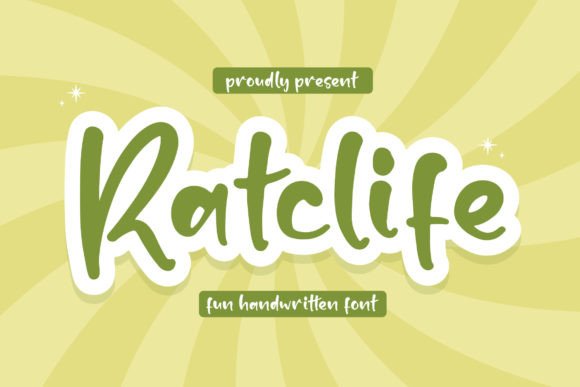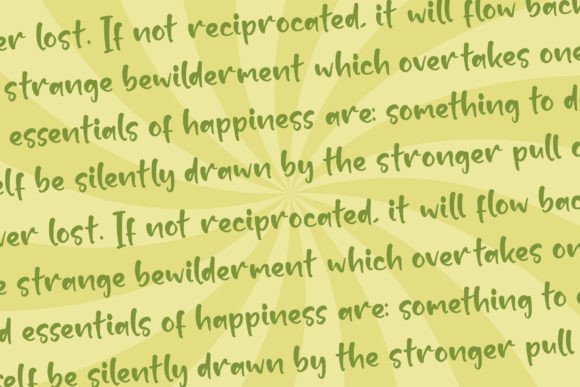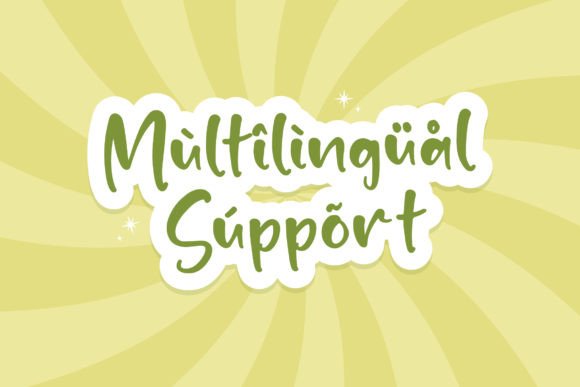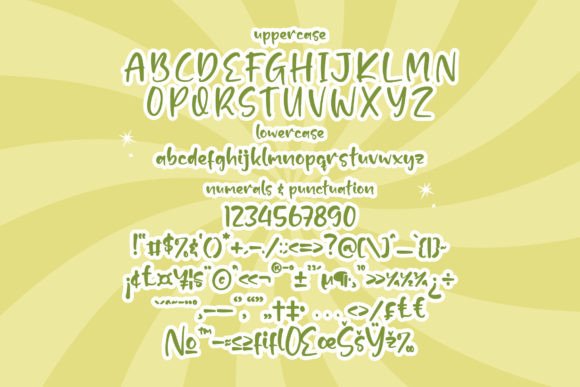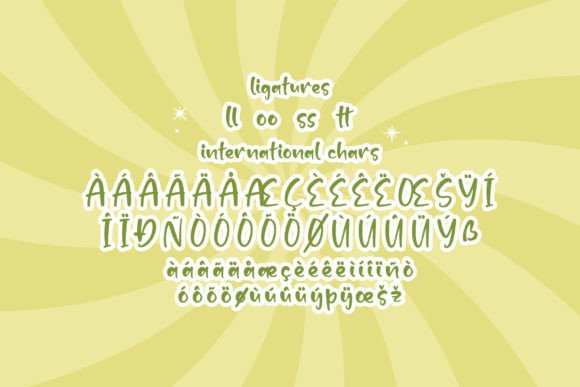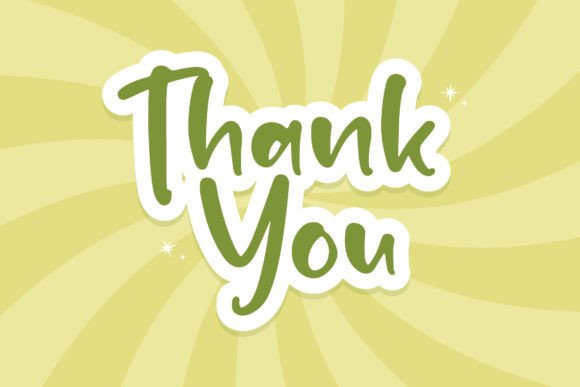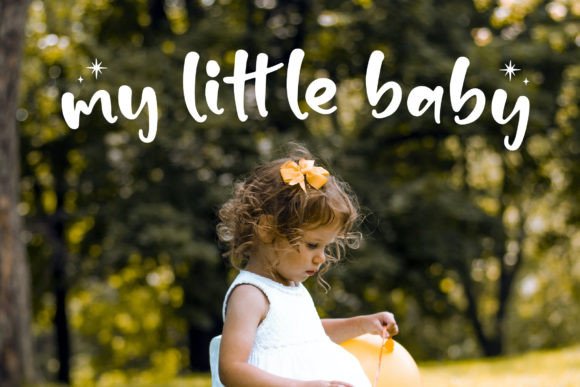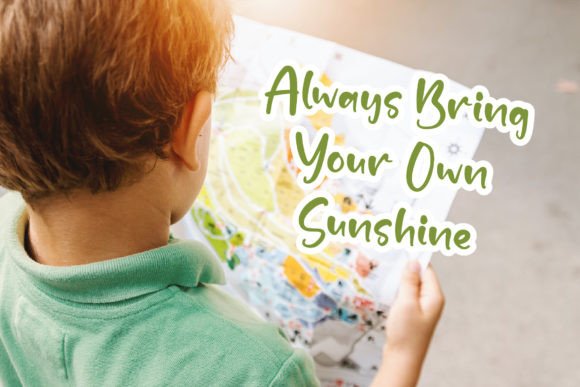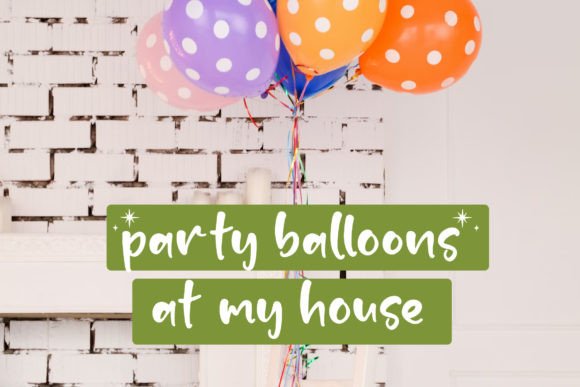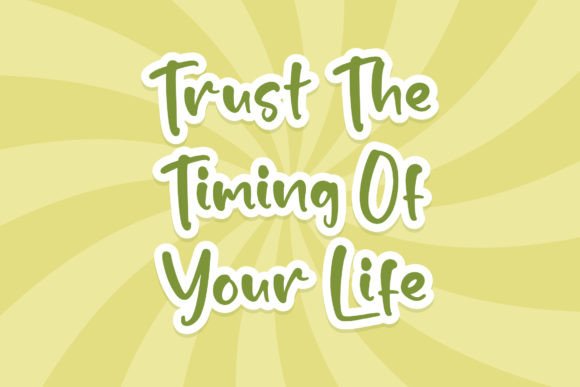
Ratclife Font
**Ratclife: A Fun and Bubbly Handwritten Font for Joyful Creations**
**Ratclife** is a delightful and playful handwritten font that radiates fun and happiness. Whether you’re working on cartoon-related designs, children’s games, quotes, titles, brand names, book covers, posters, or any creative project that calls for a touch of joy, this font is an excellent choice.
**Ratclife** distinguishes itself with its whimsical and bubbly letterforms, creating an immediate sense of playfulness and cheerfulness. The font’s carefree style makes it a perfect choice for projects that aim to bring joy and smiles to your audience.
This font’s versatility ensures it can easily adapt to various applications. Whether you’re designing for children’s products, inspirational quotes, or any other creative endeavor, **Ratclife** infuses a sense of fun and light-heartedness into your work.
In children’s products and games, this font enhances the playful and imaginative aspects of your designs, making them more engaging and appealing to young audiences.
For inspirational quotes and motivational messages, **Ratclife** adds a touch of positivity and joy, delivering your message with a smile.
In conclusion, **Ratclife** is more than just a font; it’s a design asset that brings fun and cheerfulness to your creative projects. Whether you’re designing for kids or looking to add a joyful touch to your work, choose **Ratclife** to infuse your projects with its delightful and playful charm. Embrace its whimsical appeal, and let your creativity shine with happiness and positivity.